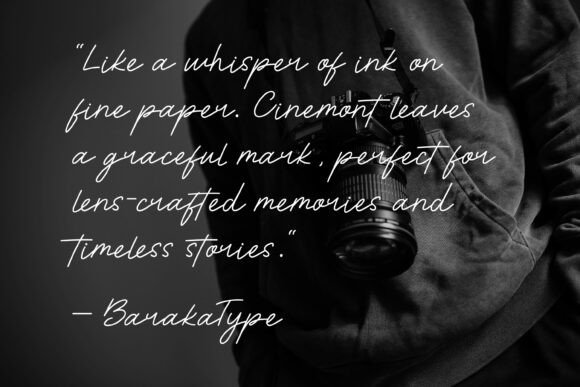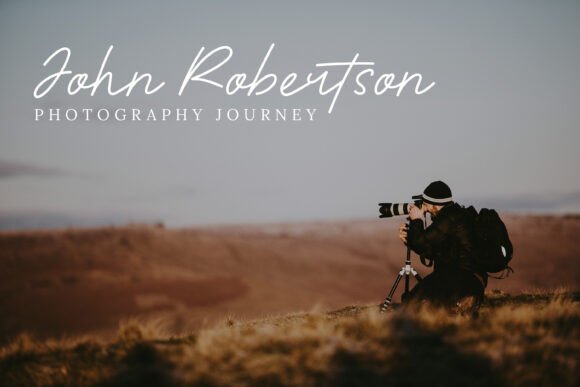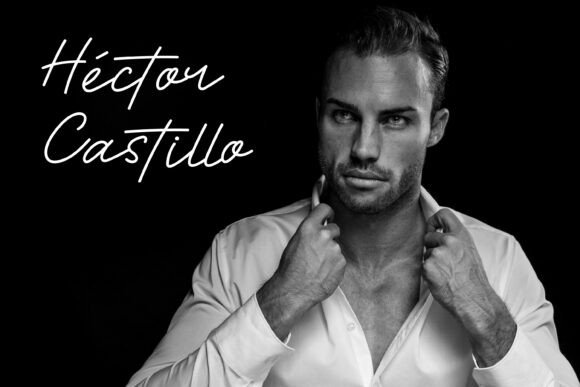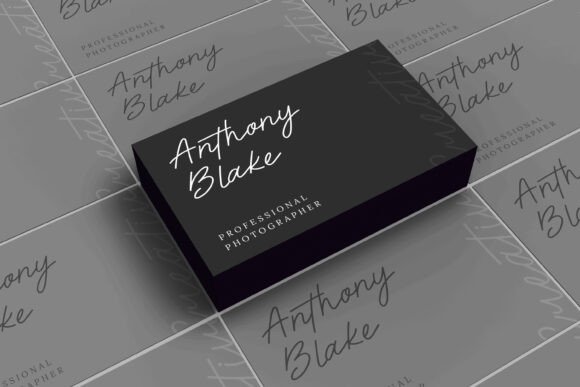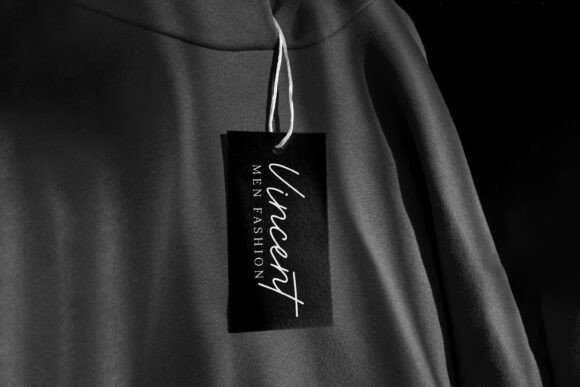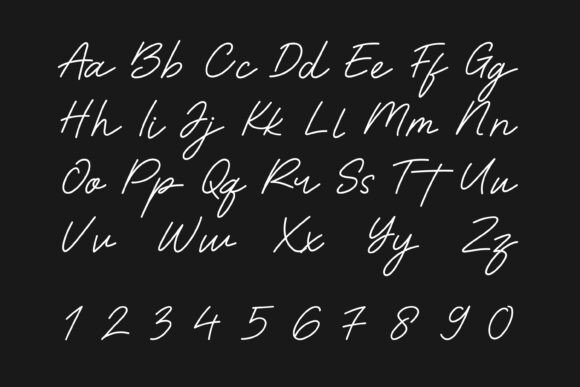
Cinemont Signature Font: Elevate Your Design with Cinematic Flair
Imagine a font that exudes style, sophistication, and a touch of cinematic magic. Look no further than Cinemont Signature, a smooth handwritten script that brings an authentic, personal vibe to any design project. In this article, we’ll dive into the world of Cinemont Signature, exploring its unique features, uses, and benefits for designers and crafters.
The Art of Cinemont Signature
Cinemont Signature is more than just a font – it’s an experience. With its fluid, cursive strokes and elegant lettering, this script font is reminiscent of a filmmaker’s journal entries or a photographer’s behind-the-scenes notes. Its smooth, stylish appearance is perfect for adding a touch of personality to any design, from logos and branding to YouTube titles and packaging.
What Makes Cinemont Signature Special?
- Authentic Handwritten Feel: Cinemont Signature boasts an authentic, handwritten look that’s perfect for creating a personal connection with your audience.
- Cinematic Flair: With its elegant strokes and refined lettering, this font adds a touch of cinematic magic to any design.
- Versatile: From photography logos to coffee packaging, Cinemont Signature is versatile enough to be used in a wide range of design projects.
- Easy to Read: Despite its artistic nature, Cinemont Signature remains easy to read, making it perfect for body text and headlines.
Perfect Uses for Cinemont Signature
So, where can you use Cinemont Signature to elevate your design? Here are some ideas to get you started:
- Photography Logos and Branding: Add a touch of elegance and sophistication to your photography business with Cinemont Signature.
- YouTube Titles and Thumbnails: Stand out in a crowded YouTube landscape with eye-catching titles and thumbnails featuring Cinemont Signature.
- Coffee Packaging and Labels: Give your coffee brand a moody, artistic vibe with Cinemont Signature on your packaging and labels.
- Personal Branding and Stationery: Add a touch of personality to your personal brand with Cinemont Signature on your stationery, business cards, and letterheads.
As a designer or crafter, you’re always on the lookout for unique and versatile fonts to elevate your designs. Cinemont Signature offers a range of benefits, including:
- Time-Saving: With its pre-designed letters and words, Cinemont Signature saves you time and effort in creating custom lettering.
- Consistency: Ensure consistency across your designs with a font that looks great in any size or context.
- Inspiration: Cinemont Signature’s unique style can inspire new ideas and creativity in your design work.
Cinemont Signature is more than just a font – it’s a design experience. With its smooth, stylish appearance and authentic handwritten feel, this script font is perfect for adding a touch of personality to any design project. Whether you’re a designer, photographer, or crafter, Cinemont Signature is sure to elevate your work and leave a lasting impression.